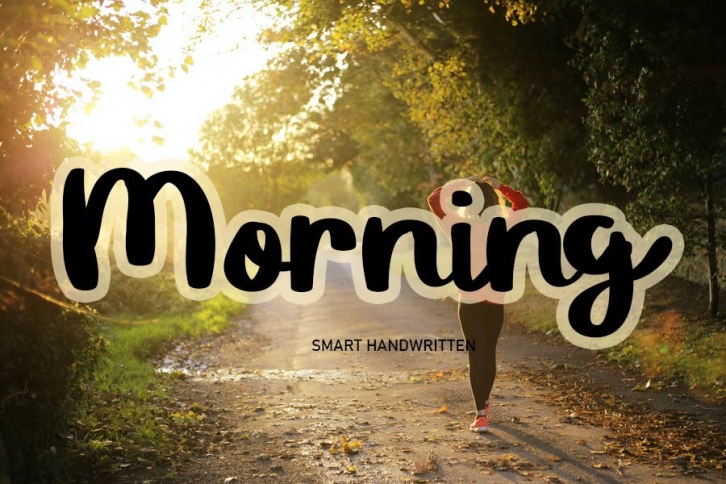
Morning is a sweet and cursive handwritten font. This gentle font will look gorgeous on a variety of design ideas. It will add a joyful and romantic touch to each of your projects!